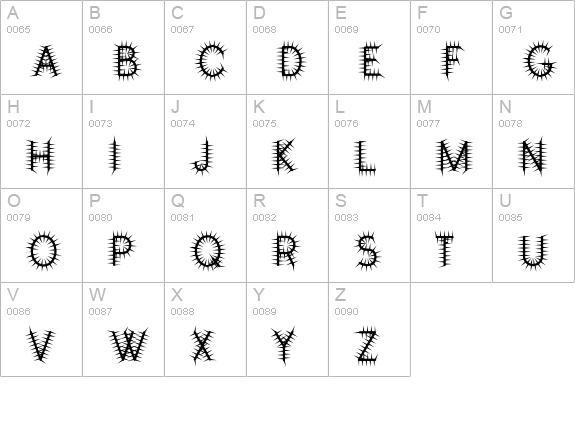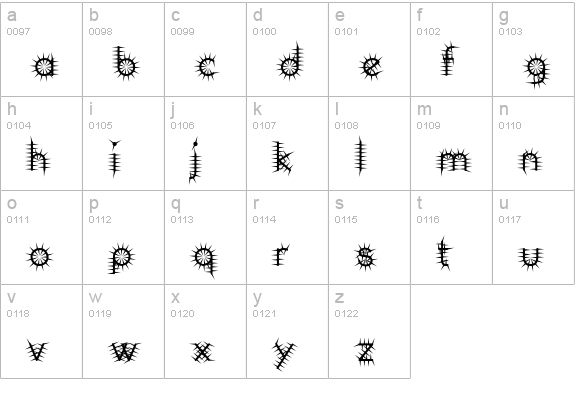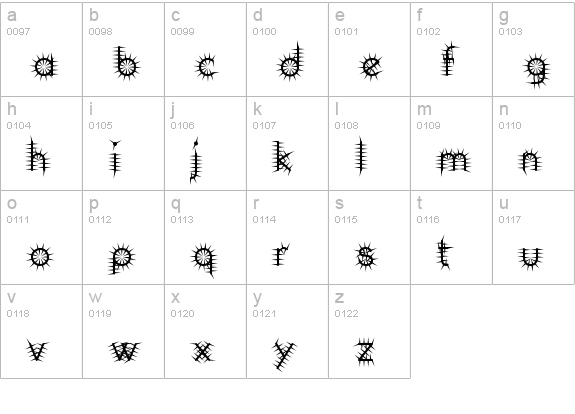
CennerikSpiked Font Details
CennerikSpiked font is a bold and edgy typeface that exudes a sense of modernity and sophistication. Its sharp spikes and unique design make it perfect for projects that require a strong and impactful visual presence. The angular letters of CennerikSpiked font give off a sense of energy and dynamism, making it ideal for headlines, logos, and branding materials. What sets CennerikSpiked font apart is not only its striking appearance but also the fact that it is available for free download at FontsMarket.com. This means that you can easily add this eye-catching font to your design arsenal without any cost involved. Whether you're working on a personal project or a professional assignment, CennerikSpiked font is sure to make a bold statement and leave a lasting impression on your audience.